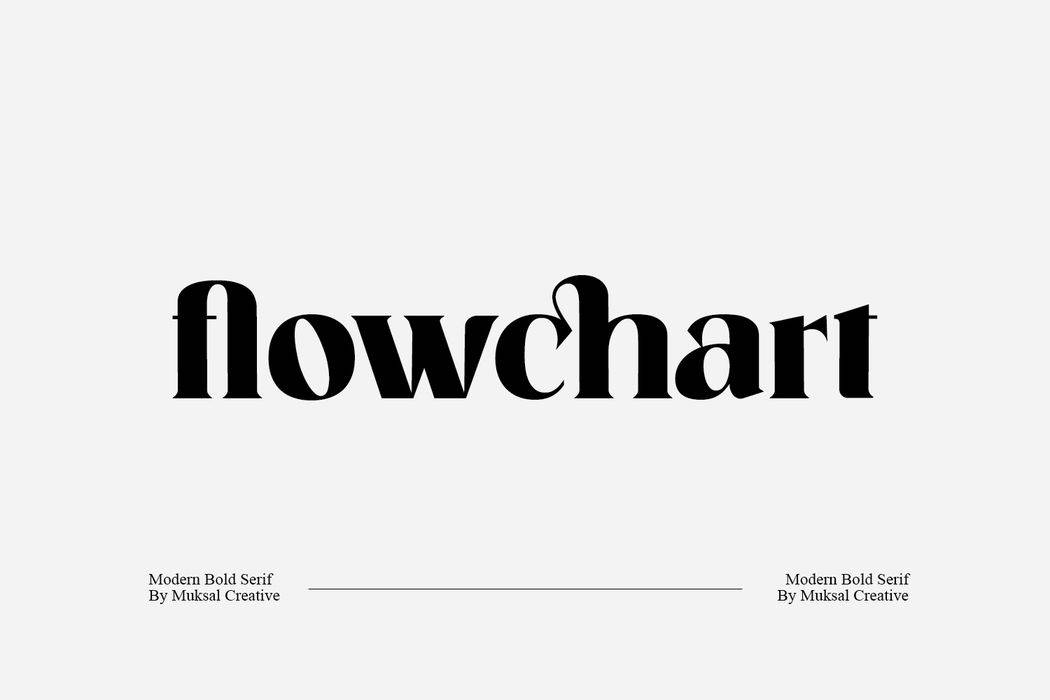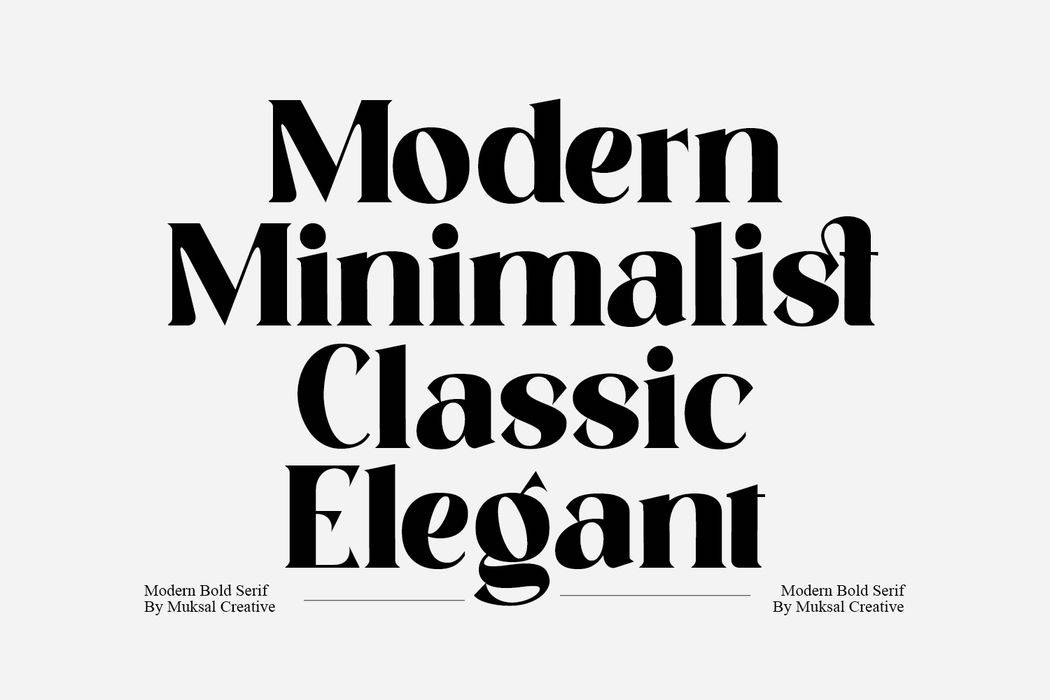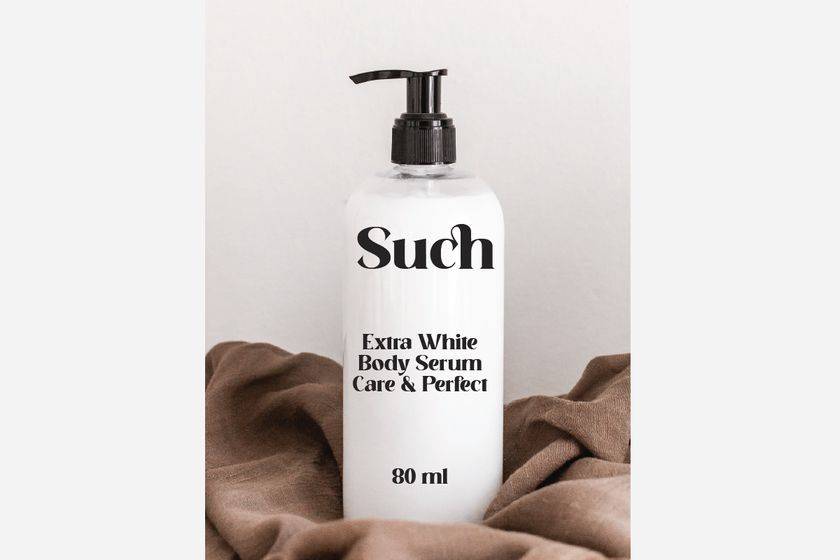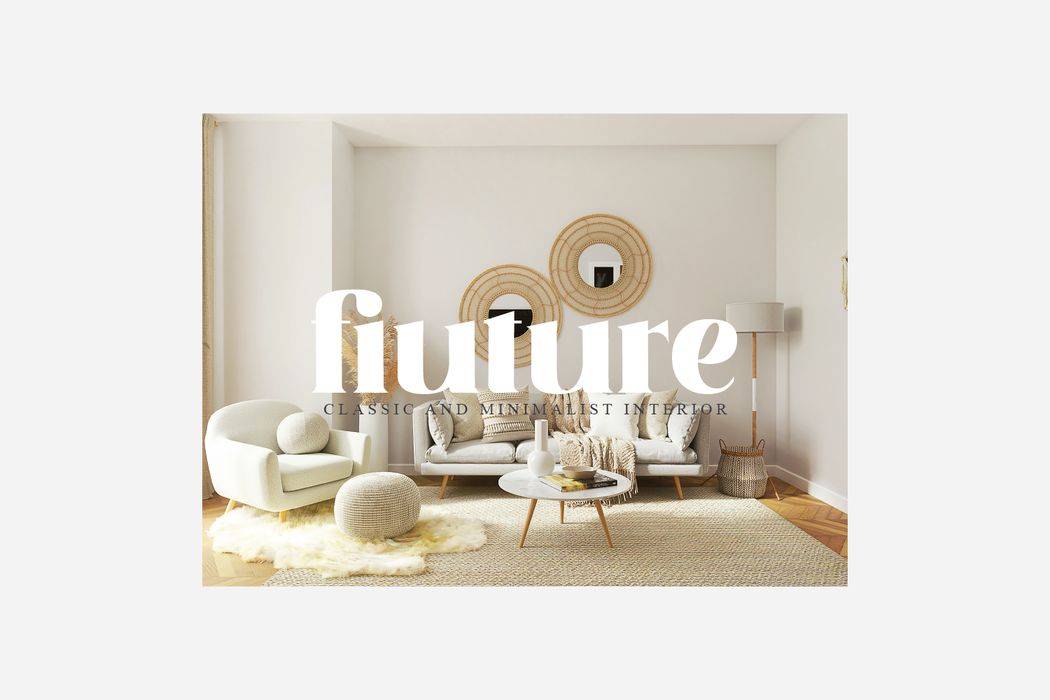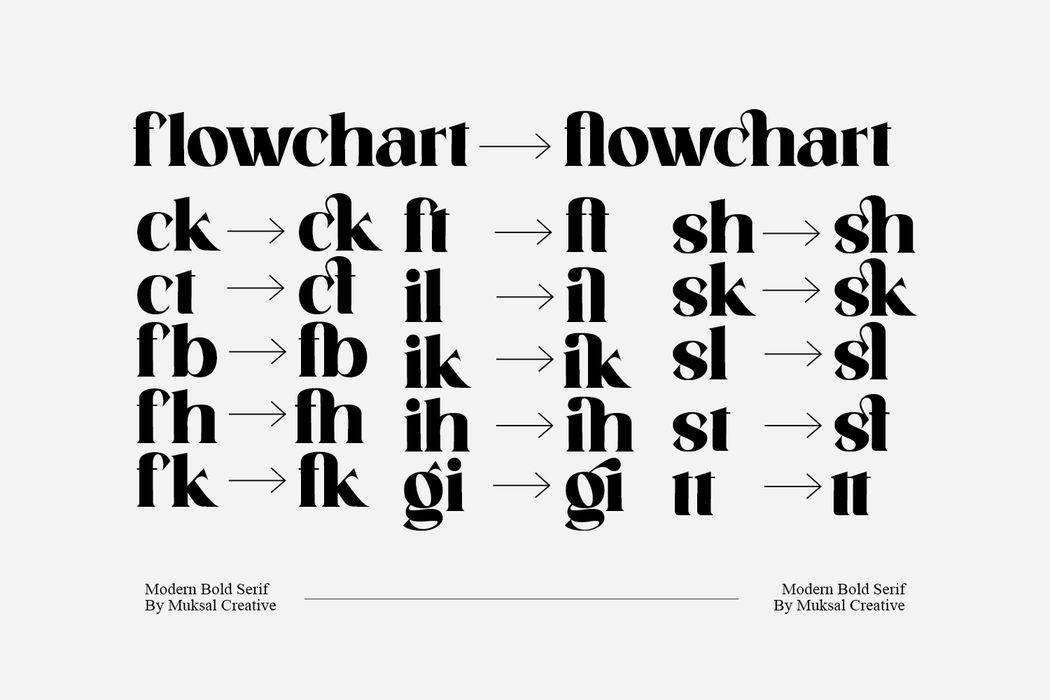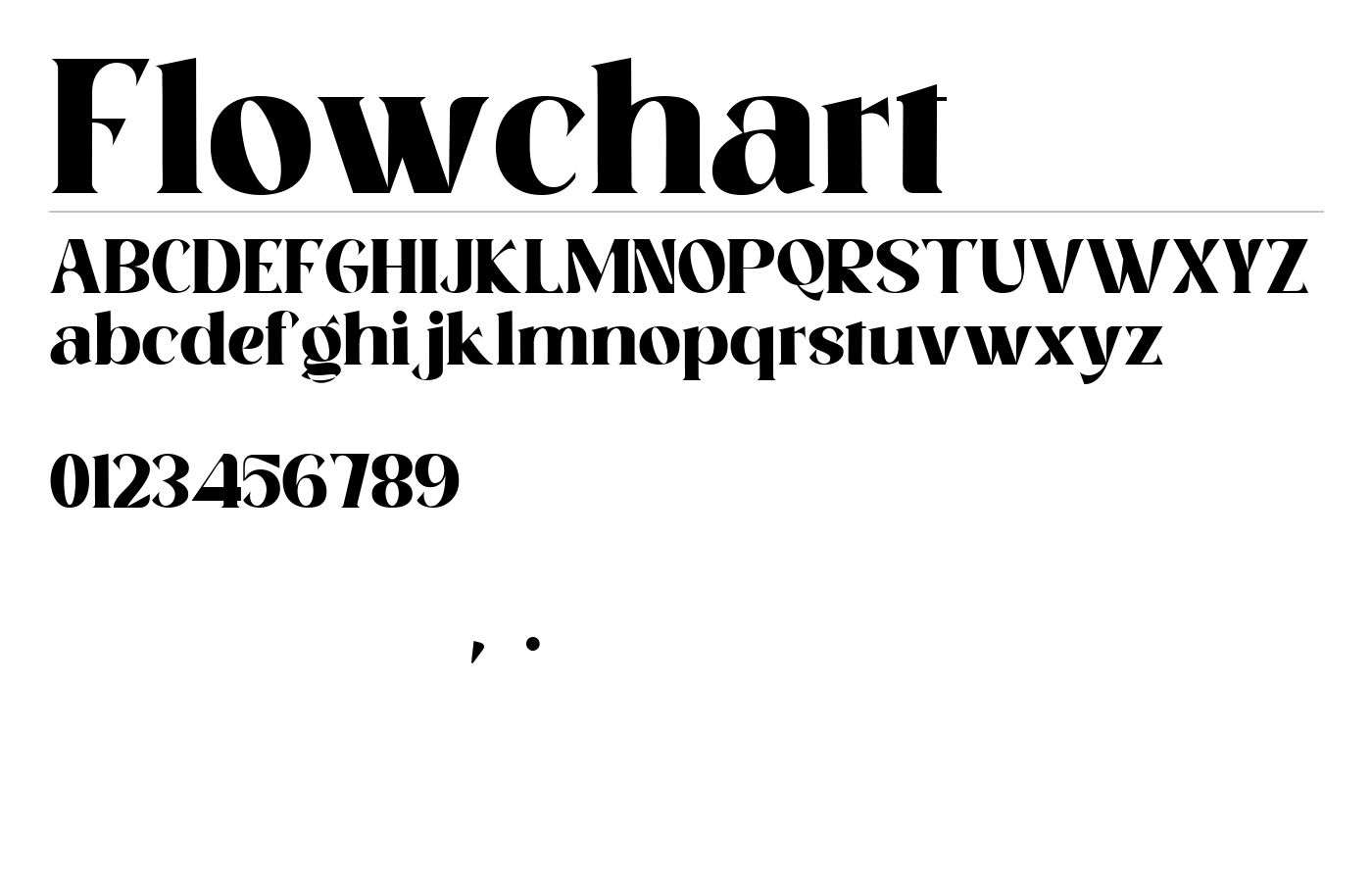
Flowchart Font is a bold serif typeface with a strong contrast between thick and thin strokes, creating a striking and elegant look. Its sharp, bracketed serifs and distinctive letterforms bring a modern twist to classic serif styles, making it ideal for headlines, logos, and editorial designs that require a sophisticated yet impactful presence. This font works well in fashion branding, luxury packaging, and any context where a stylish and confident tone is desired.
Flowchart Font
About Flowchart Font
| Font family | Flowchart Font |
| Designer | Muksal Creative |